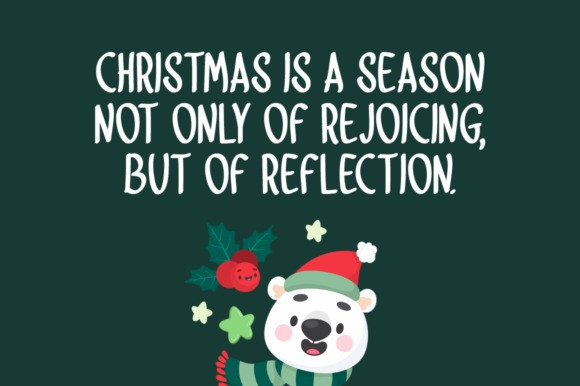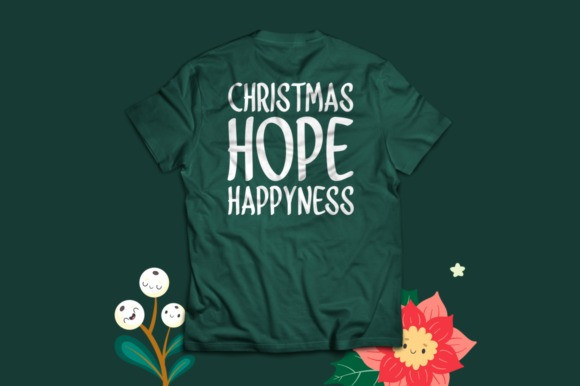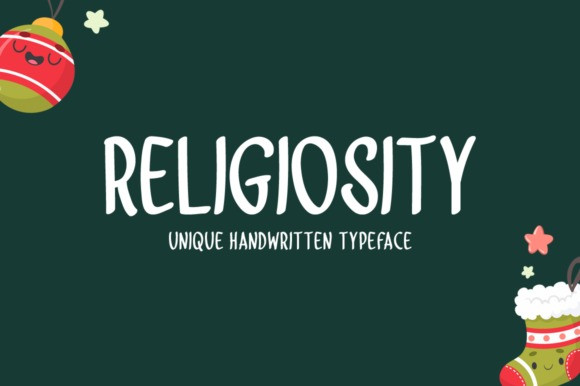
Religiosity Font
Religiosity Font is a cute and casual handwritten font. No matter the topic, this font will be an incredible asset to your fonts’ library, as it has the potential to elevate any creation.